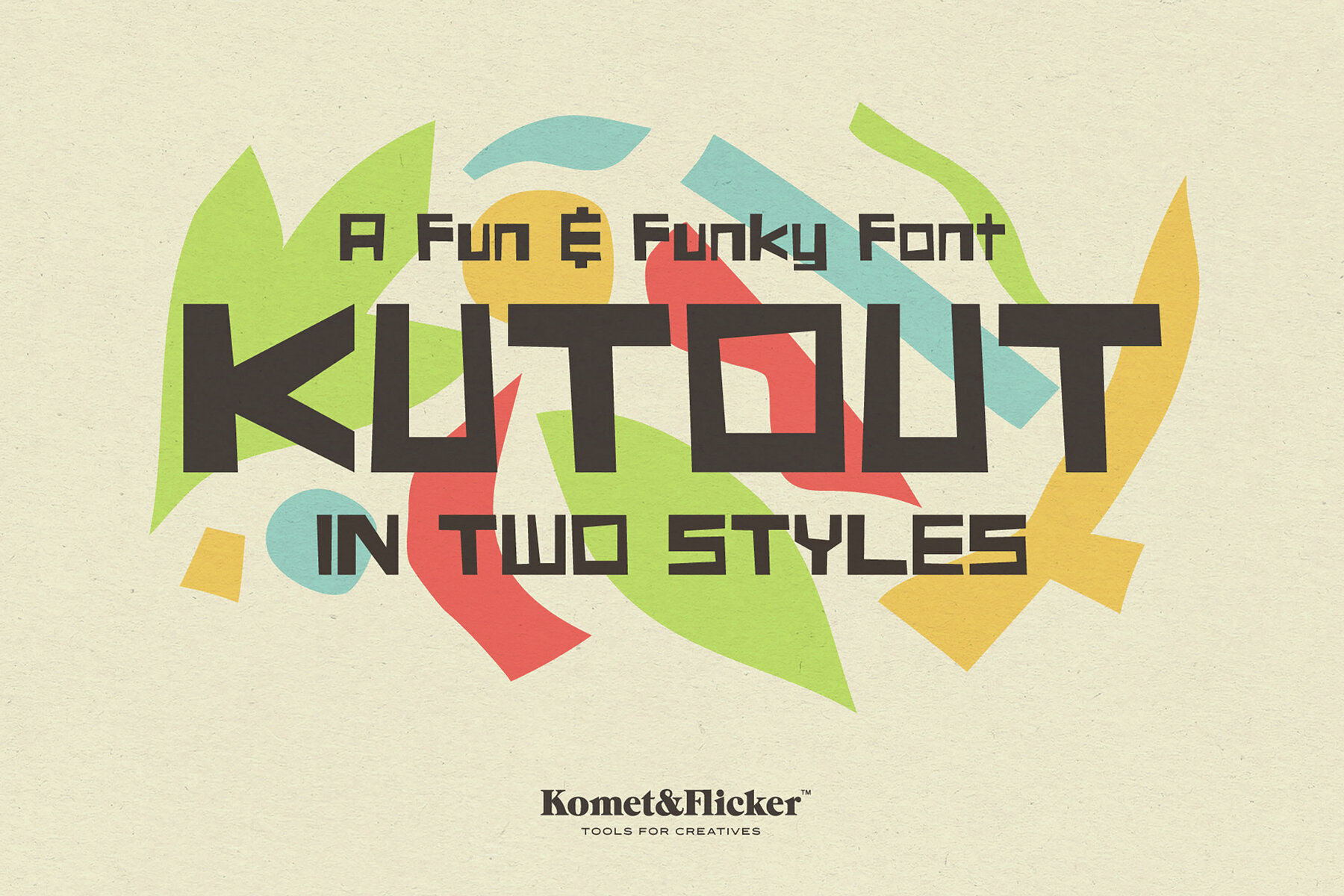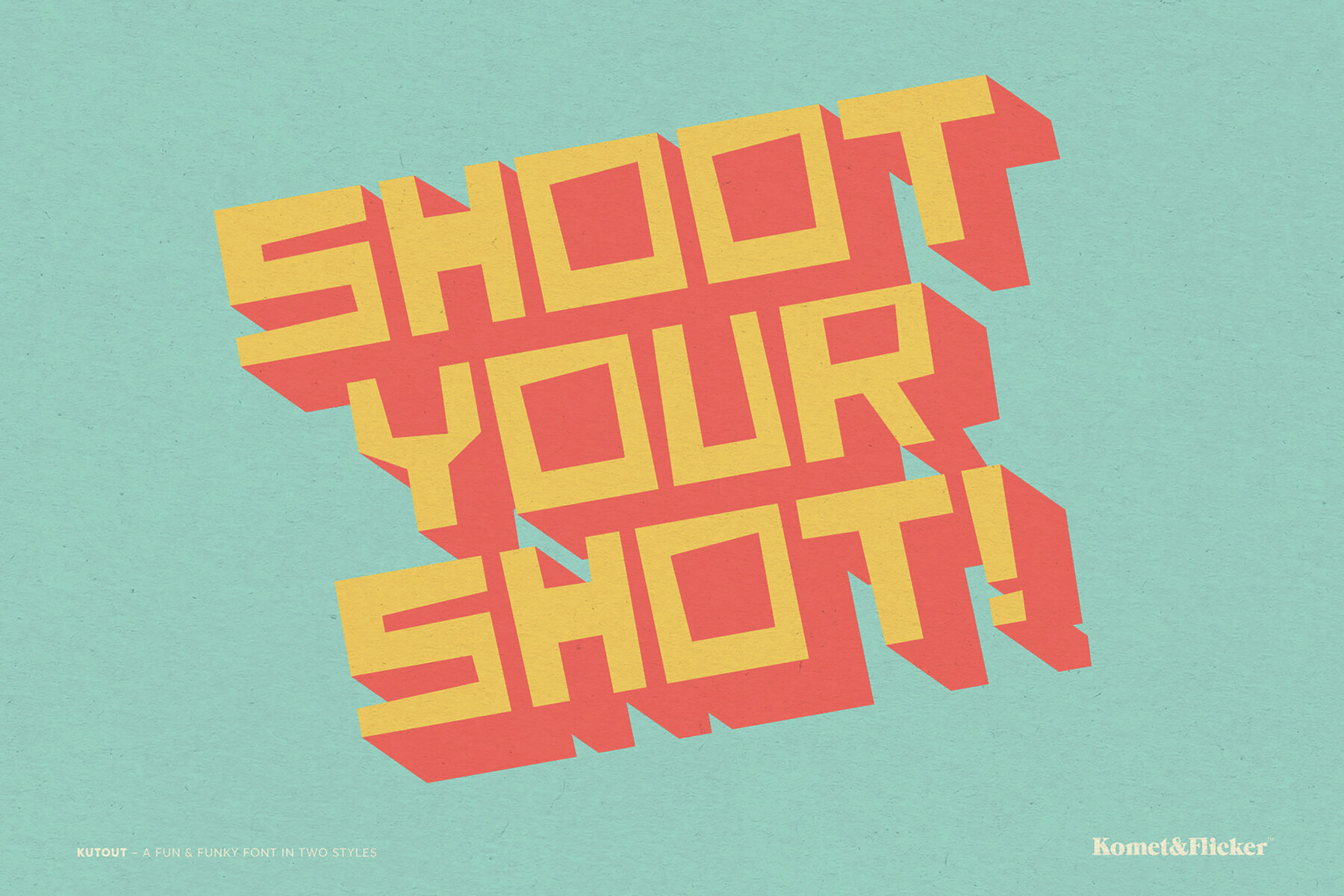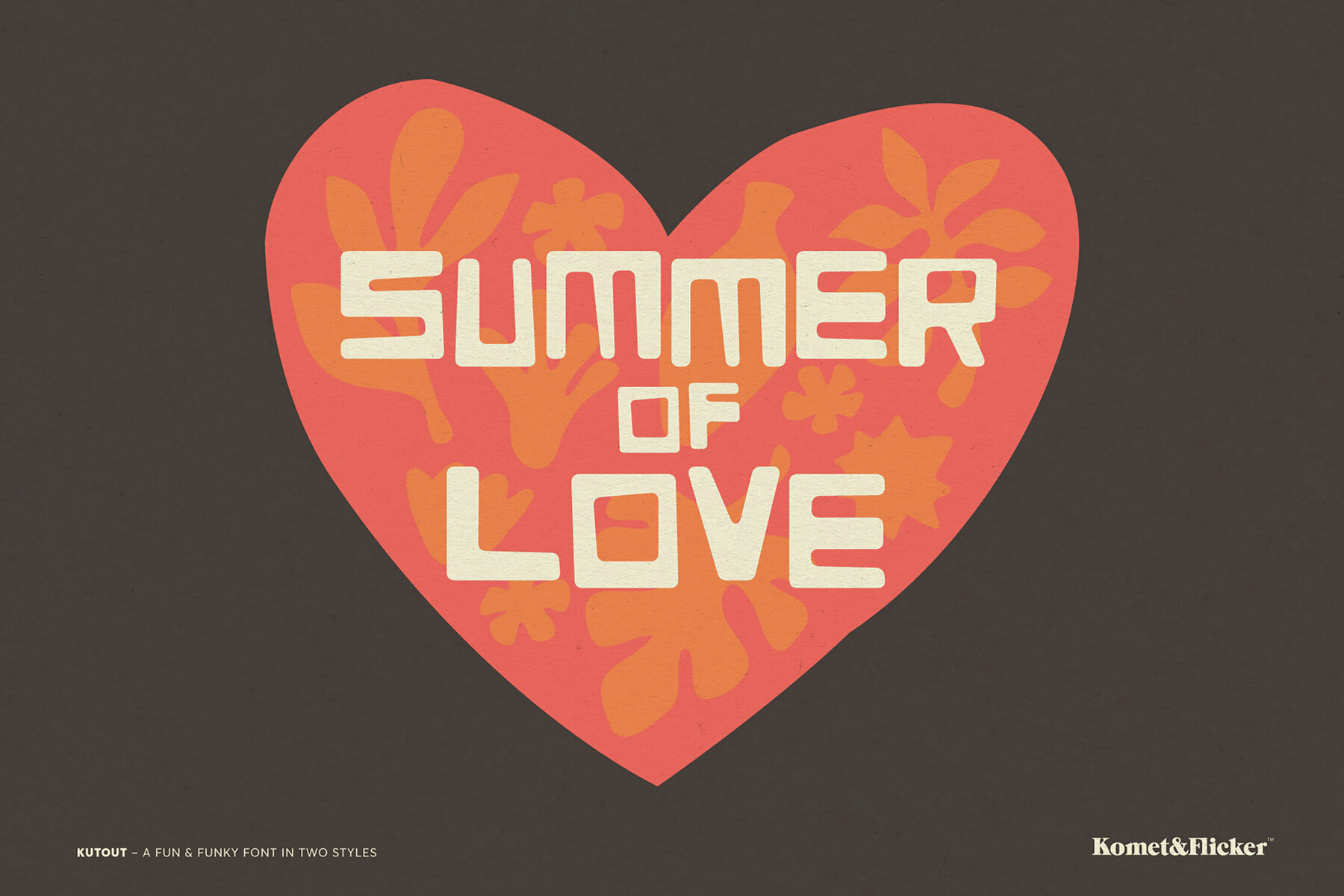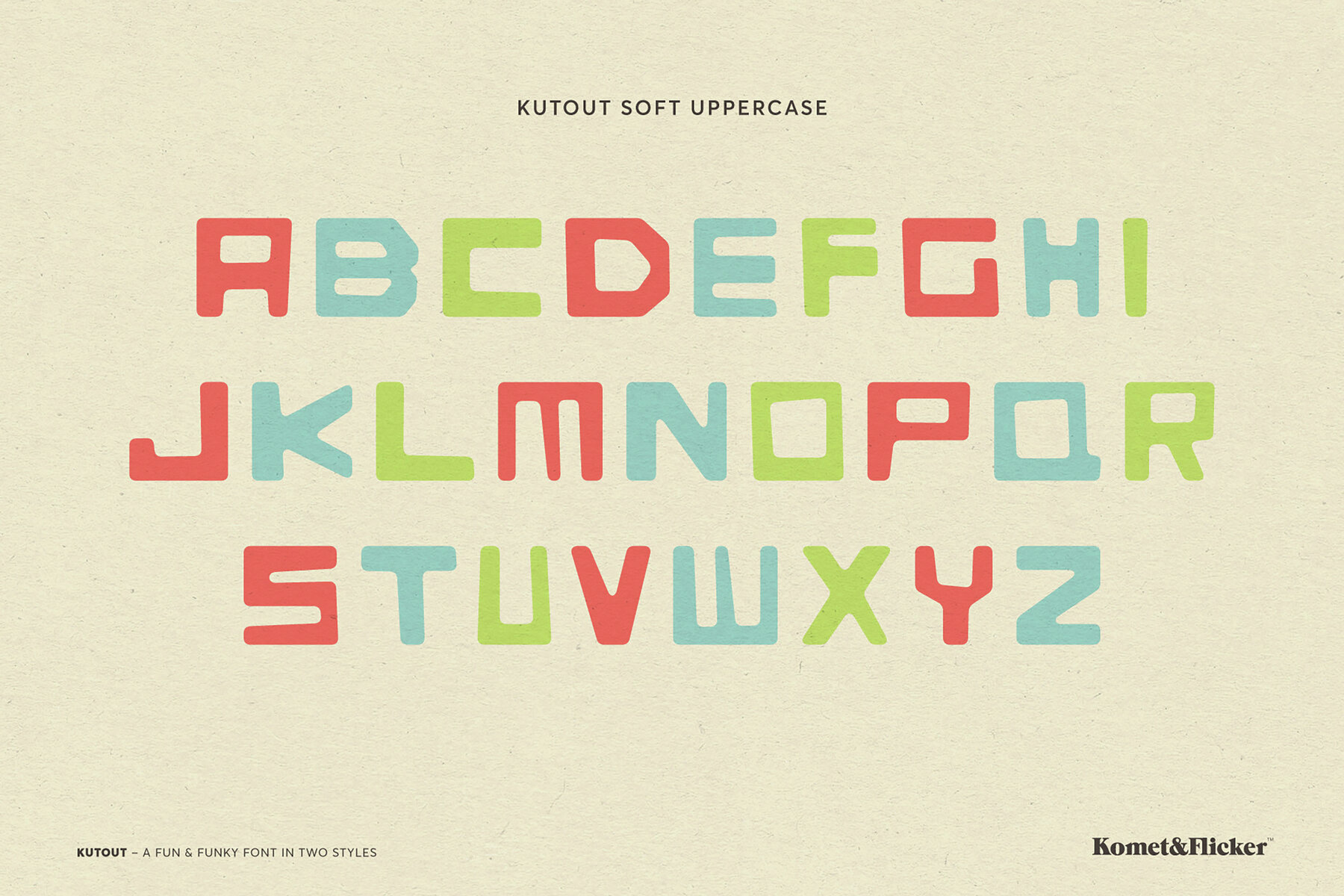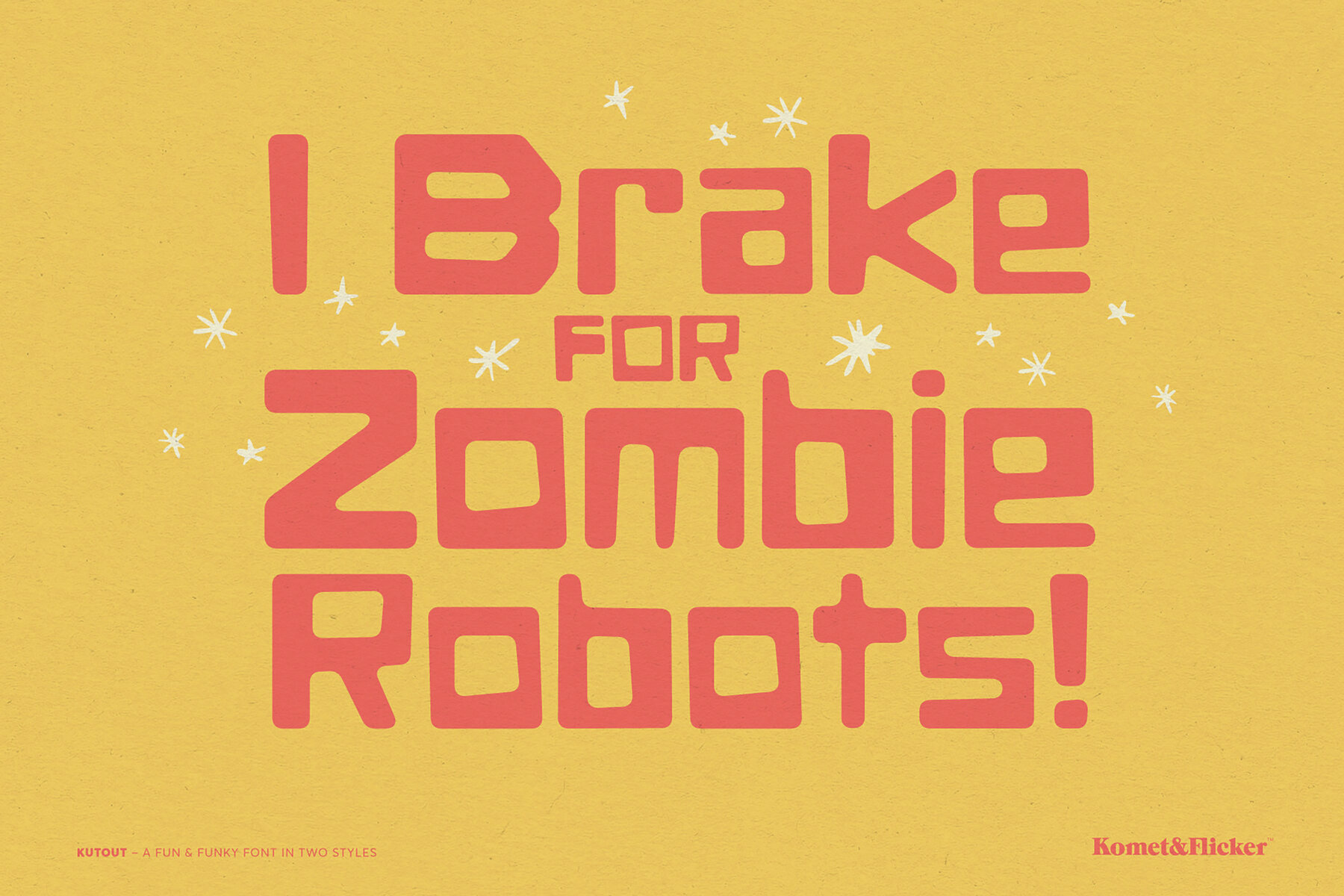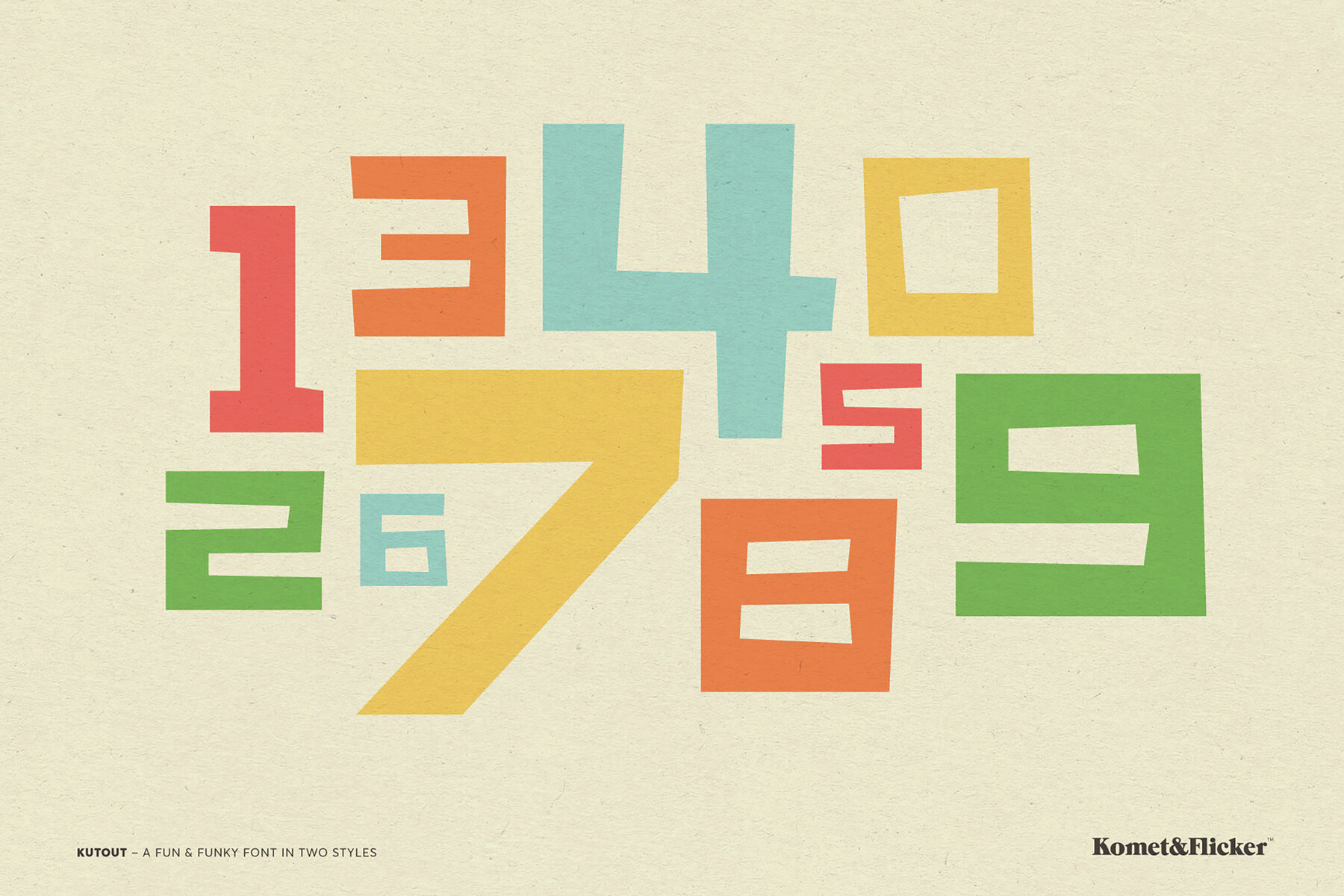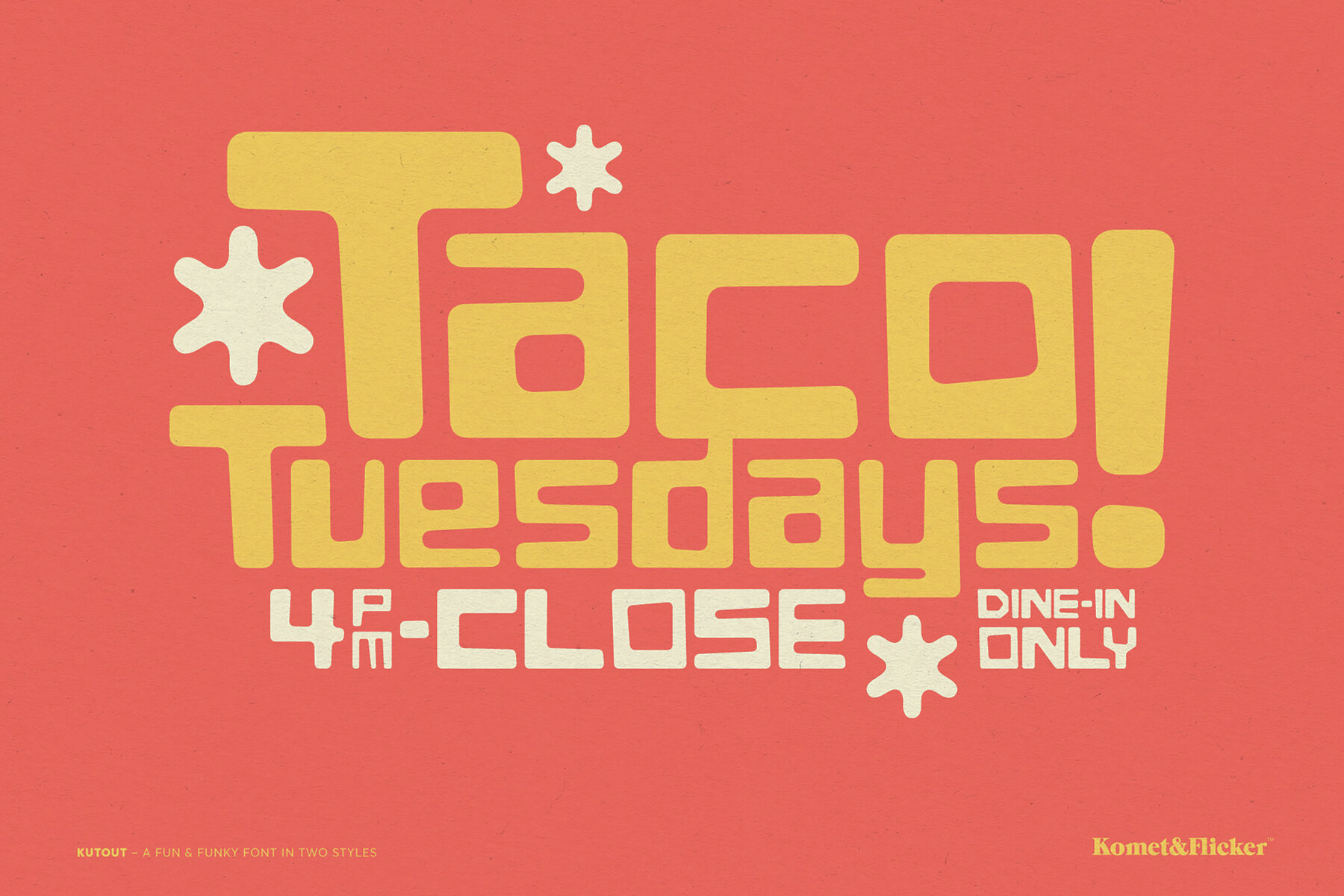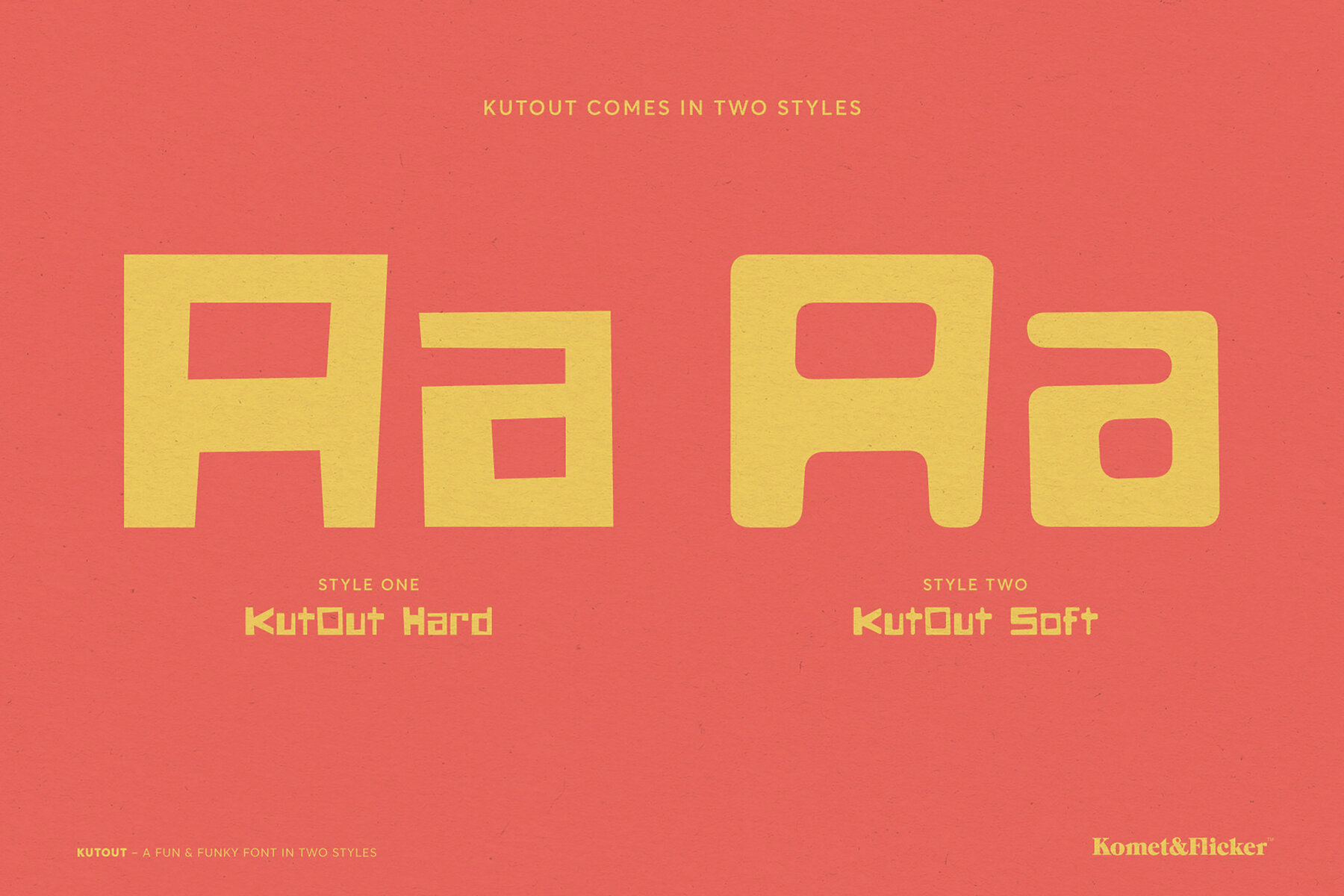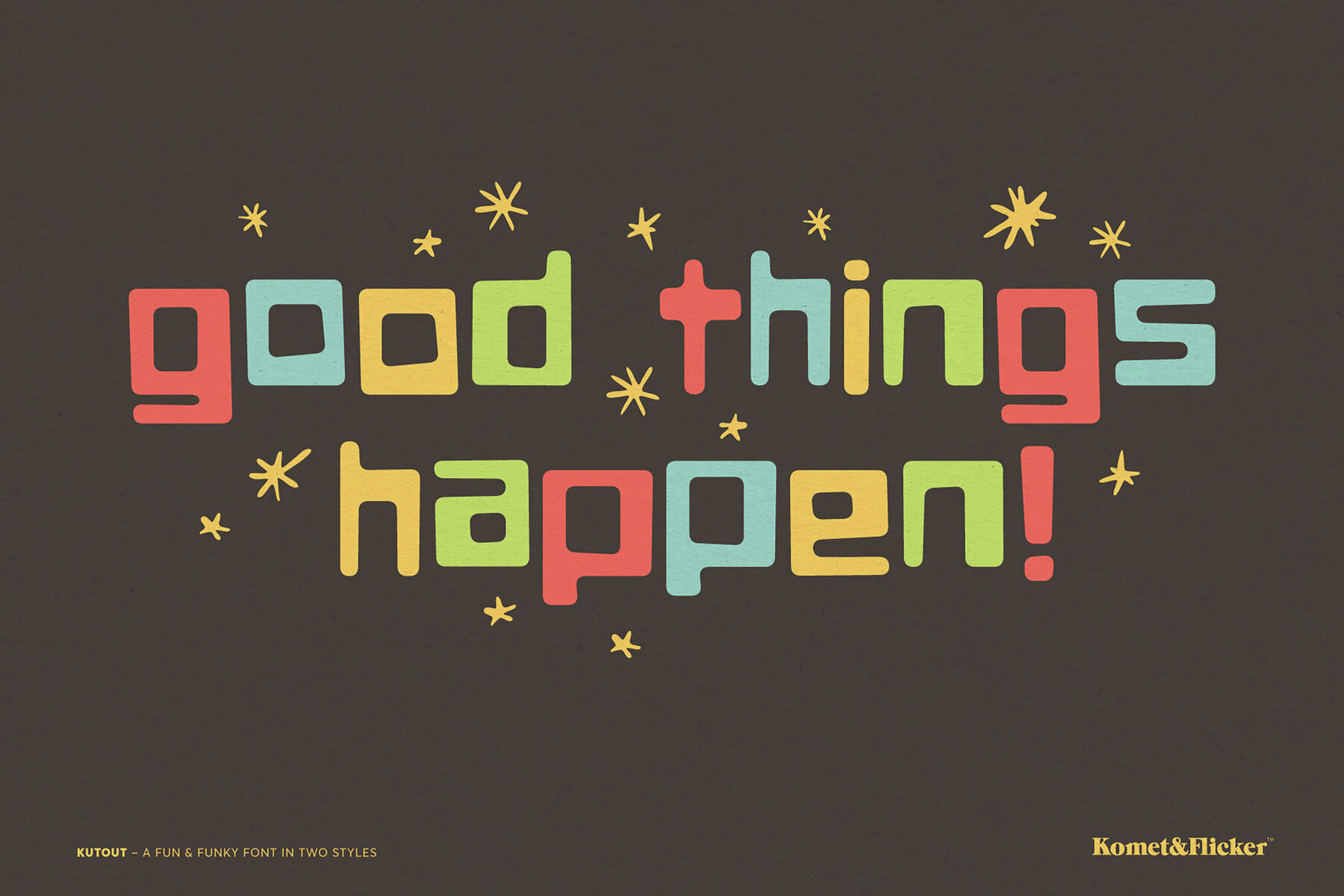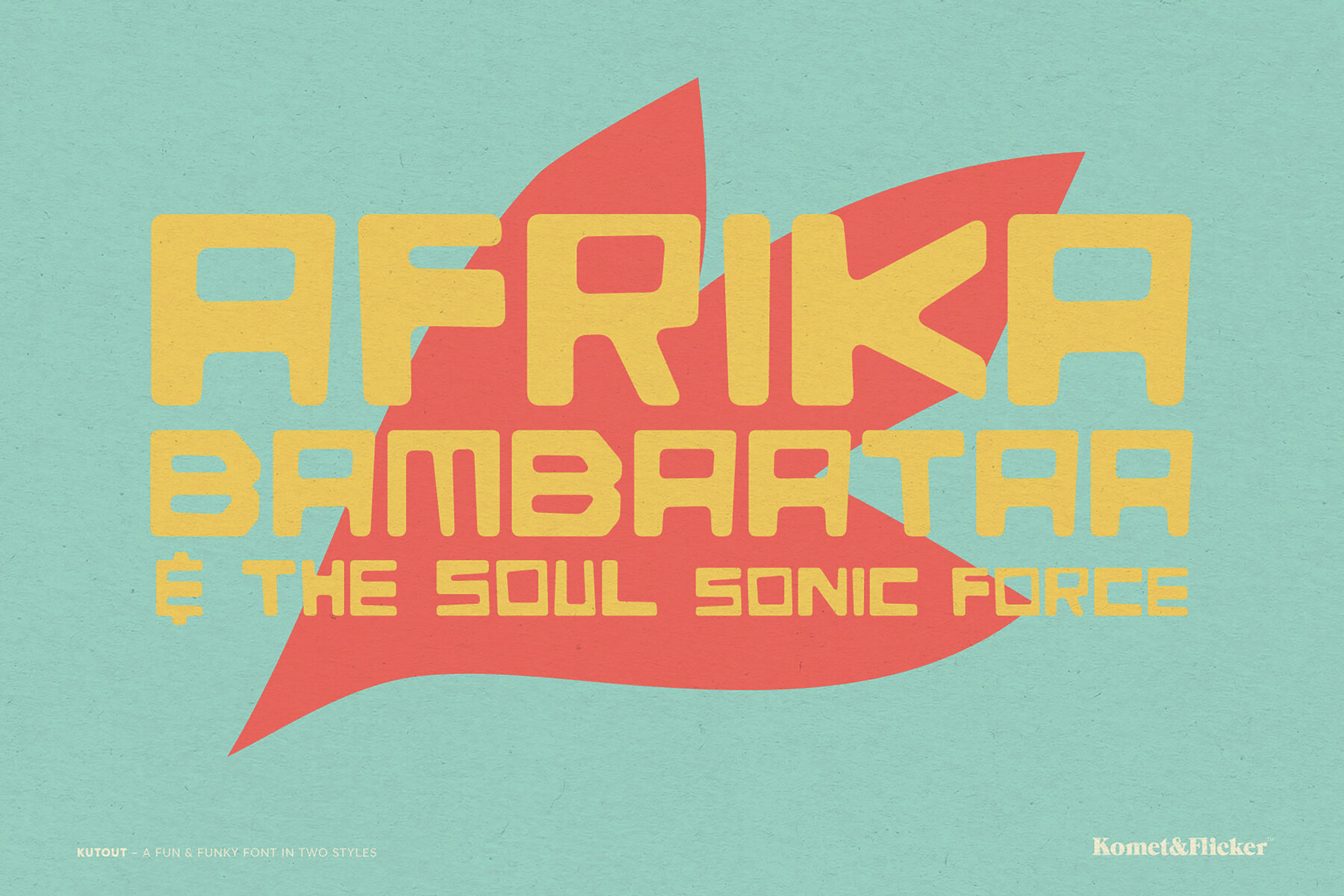
Kutout Font
KutOut Hard
KutOut Soft
Kutout is a font inspired by the lively and dynamic aesthetic of loose cut paper shapes, making it an ideal choice for conveying an energetic and creative vibe. This versatile font excels in branding, identities, posters, banners, t-shirts, and party invites—essentially any medium where a hip and casual design style is preferred. Kutout is available in two distinct styles: a hard version with sharp corners for a bold look and a soft version with rounded edges for a subtler effect.
The font includes a comprehensive set of characters, featuring full A-Z uppercase and lowercase basic Latin alphabets. Additionally, it offers selected European characters to accommodate diverse language needs. The package is further enhanced with numbers, punctuation marks, and select symbols, ensuring that you have all the essential components for your unique design projects.